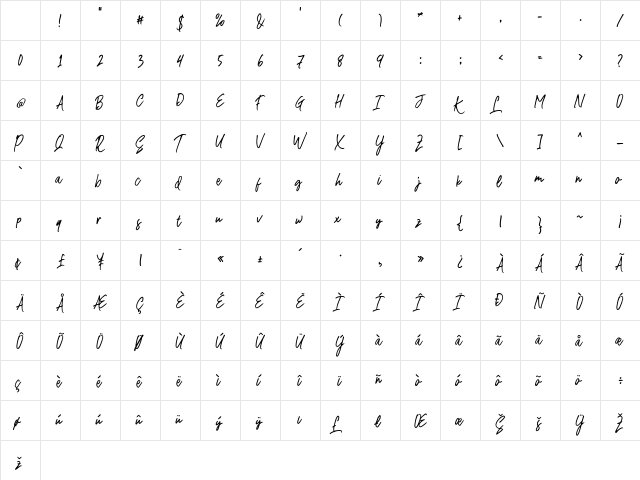
Complete Los Angeles Clean Regular glyph index. Displaying only characters natively supported by Los Angeles Clean Regular font.
Los Angeles Clean is a composed and adaptable typeface that performs quietly and consistently across a wide range of design contexts.